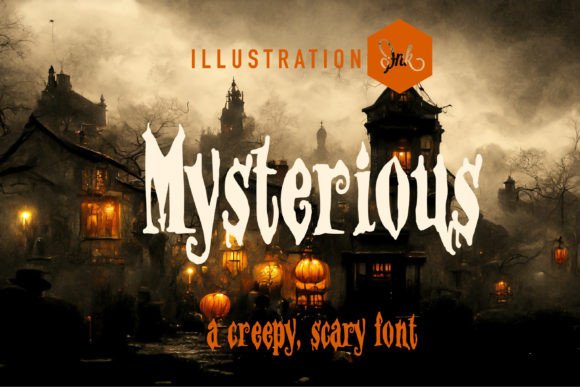
In a world of monotonous fonts, Mysterious Font emerges from the shadows, a captivating display font that will cast a spell on your Halloween designs. Unleash your creativity and delve into the realm of the supernatural with this spine-chilling font.
Journey through the haunted mansion of your imagination, where Mysterious Font weaves its eerie charm. Its sharp, angular strokes evoke the spine-tingling atmosphere of a chilling tale, sending shivers down your spine with every word.
Conjure eerie flyers and spine-chilling posters that will leave your audience spellbound. Design invitations to a haunted house party that will make their hearts race with anticipation. Create social media posts that will make your followers scream for more.
Mysterious Font is the perfect font for conjuring the spirit of Halloween. Whether you're a graphic designer, a digital marketer, or simply a creative soul looking to add a touch of spookiness to your projects, this font will cast its spell on you.